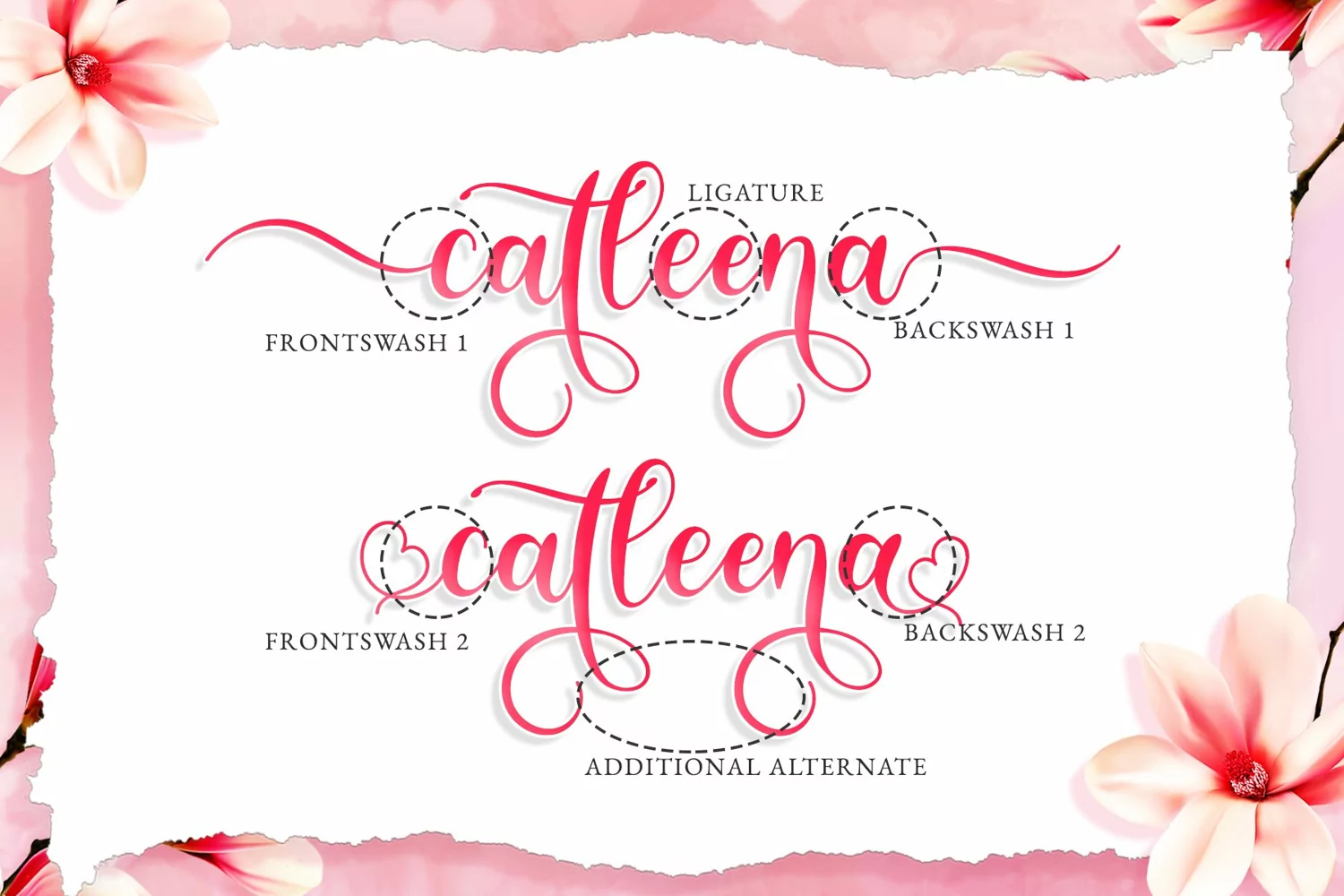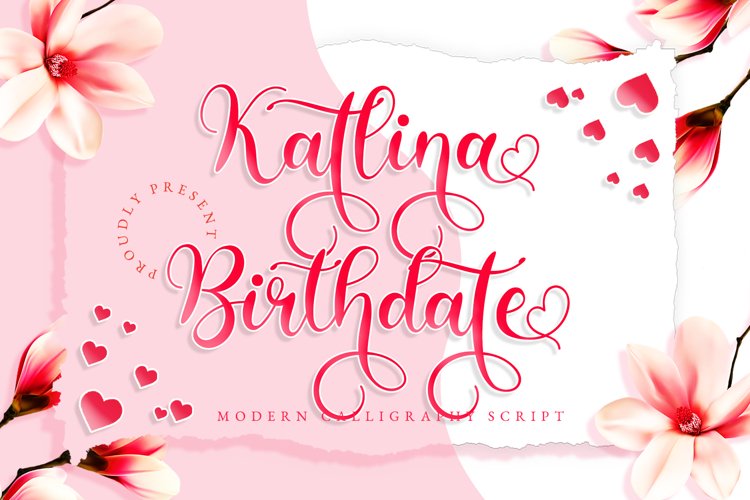
Katlina Birthdate is elegant, beatiful, and classy handwritten font. It's stunning for the gorgeous design, such as wedding, logo, branding, and any others.
Katlina Birthdate has 2 styles of front/back swashes. It also has others beautiful alternate glyphs to make your design look more stunning.
+Tons of Glyphs, including beautiful alternate glyphs.
+Multilingual glyphs.